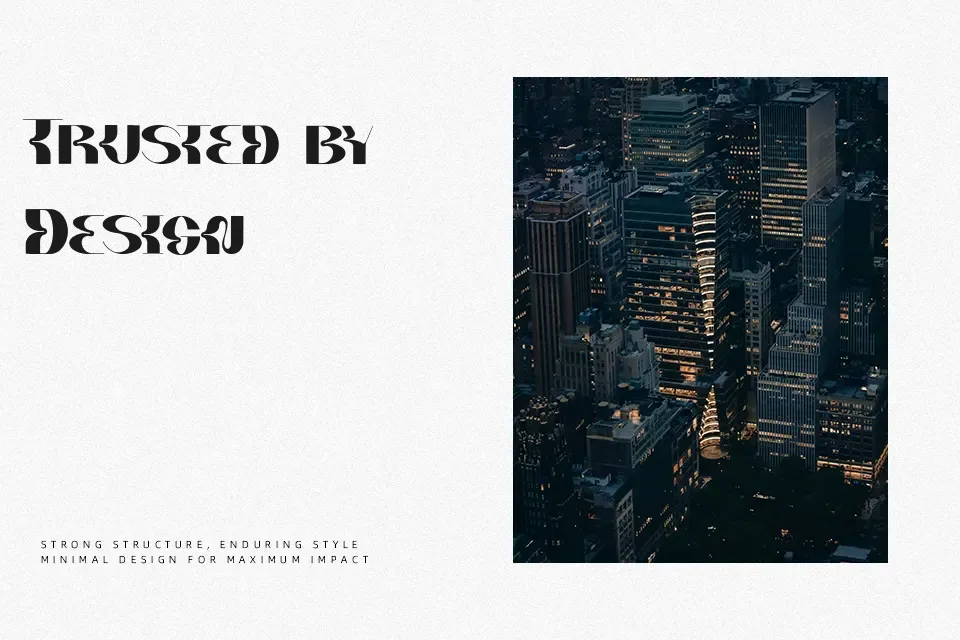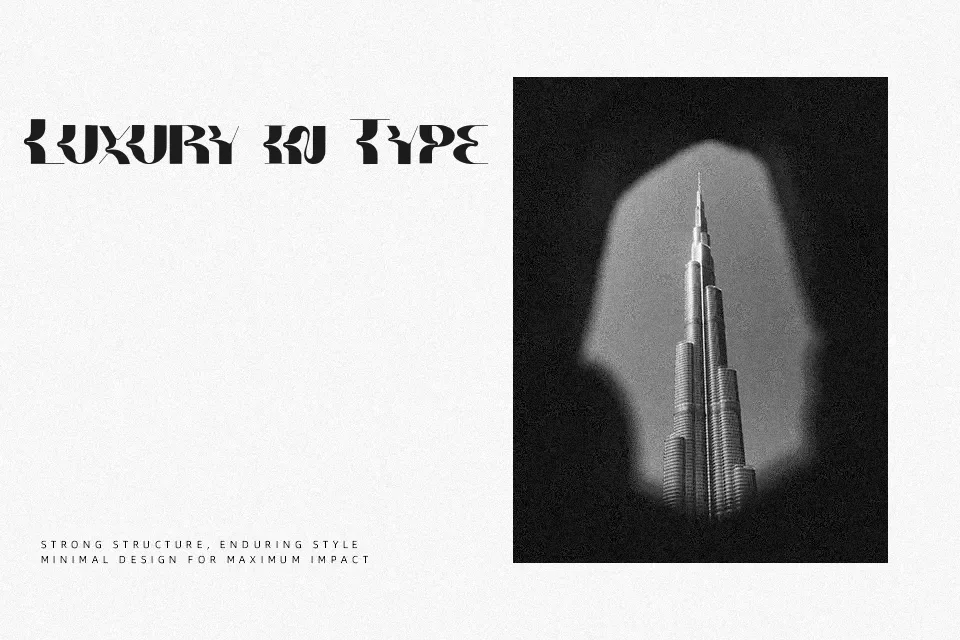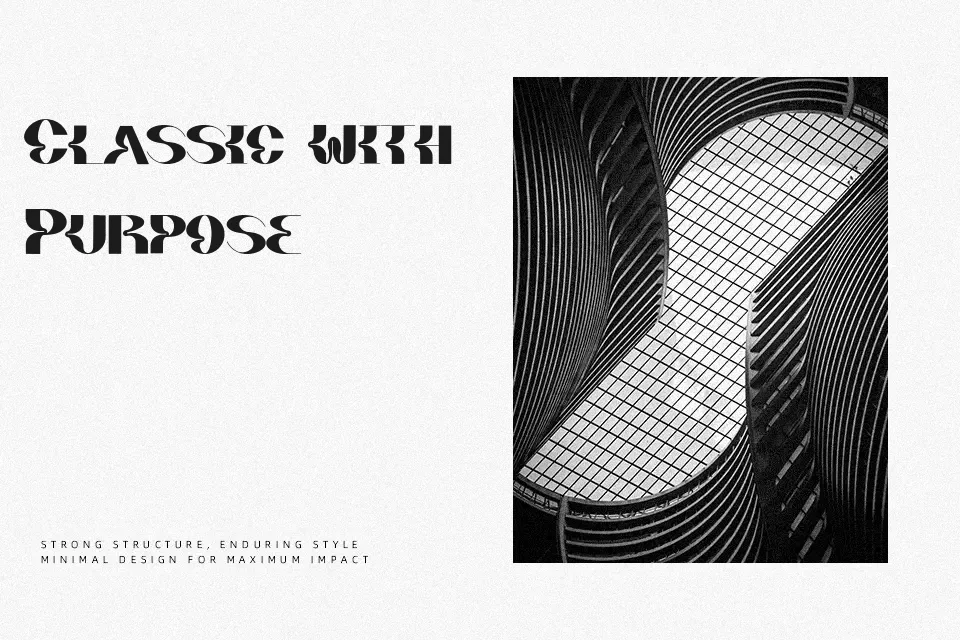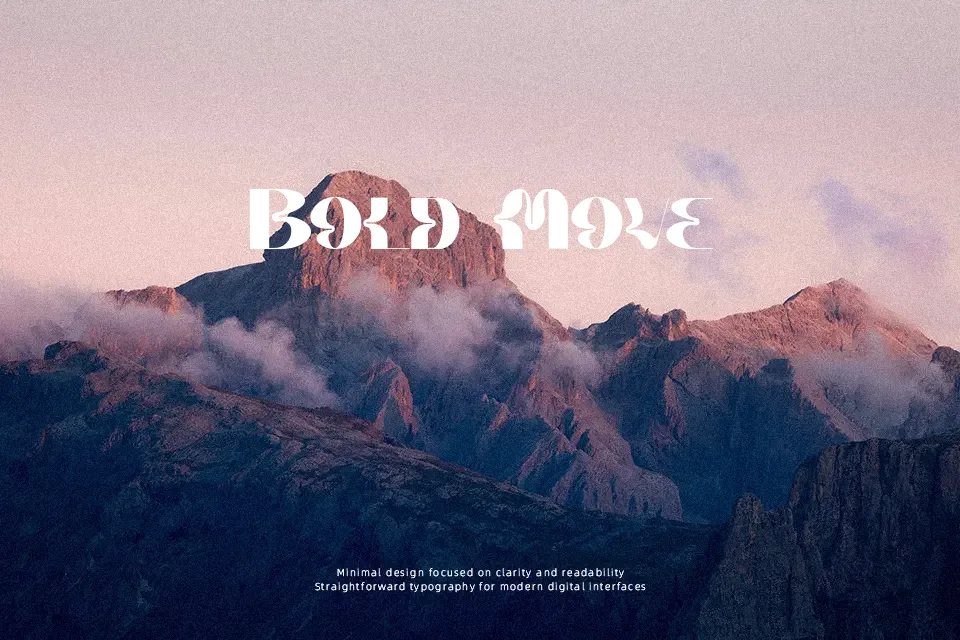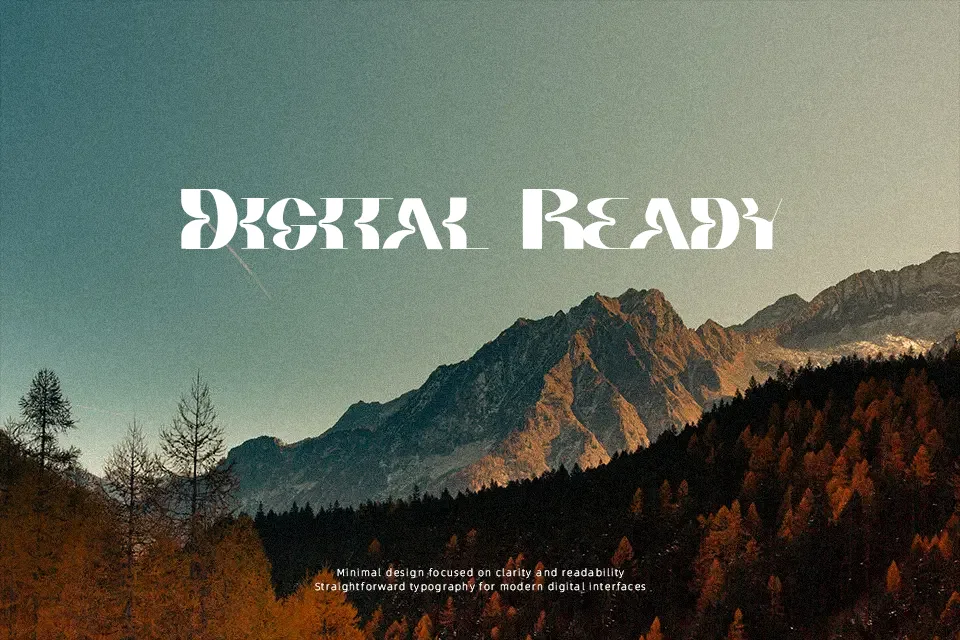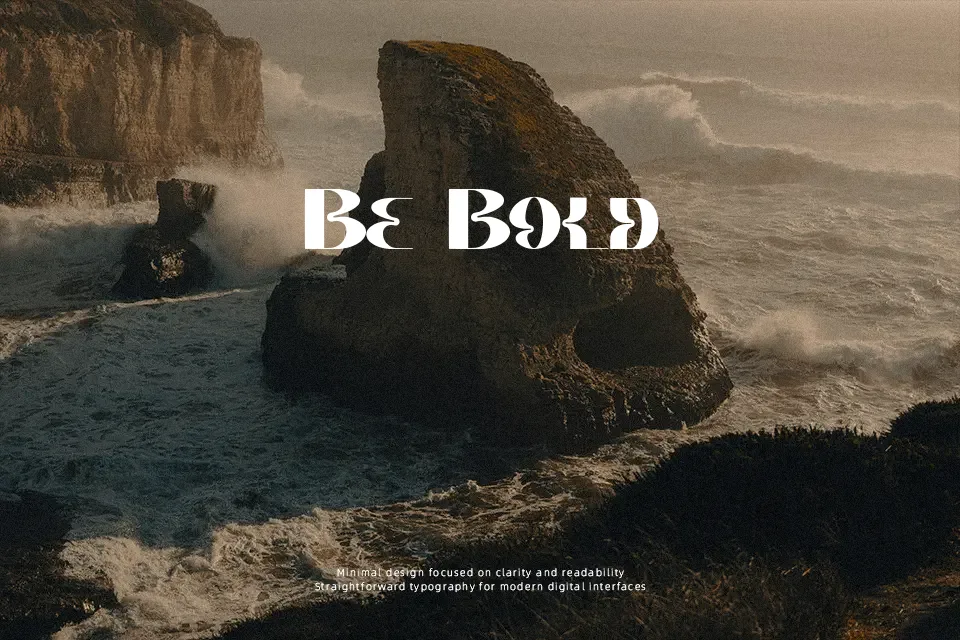
Kodaro Font
Designed by Vultype
Kodaro leans heavily into a striking display look, with thick strokes, angular cuts, and tight spacing that creates a compact and impactful texture. The letterforms feel assertive and slightly aggressive, giving it a strong presence in headlines or logo work. It works best in contexts like esports graphics, album covers, or bold promotional banners where attention is the priority. However, the dense structure and limited readability make it less practical for extended text or smaller UI elements. It performs well when used sparingly, but quickly becomes overwhelming if overused in dense layouts.
esports team logos
music cover titles
poster headlines
gaming thumbnails
small mobile UI labels
reading-heavy websites
Perfect for gaming, headline, and logo, with a bold and decorative style.